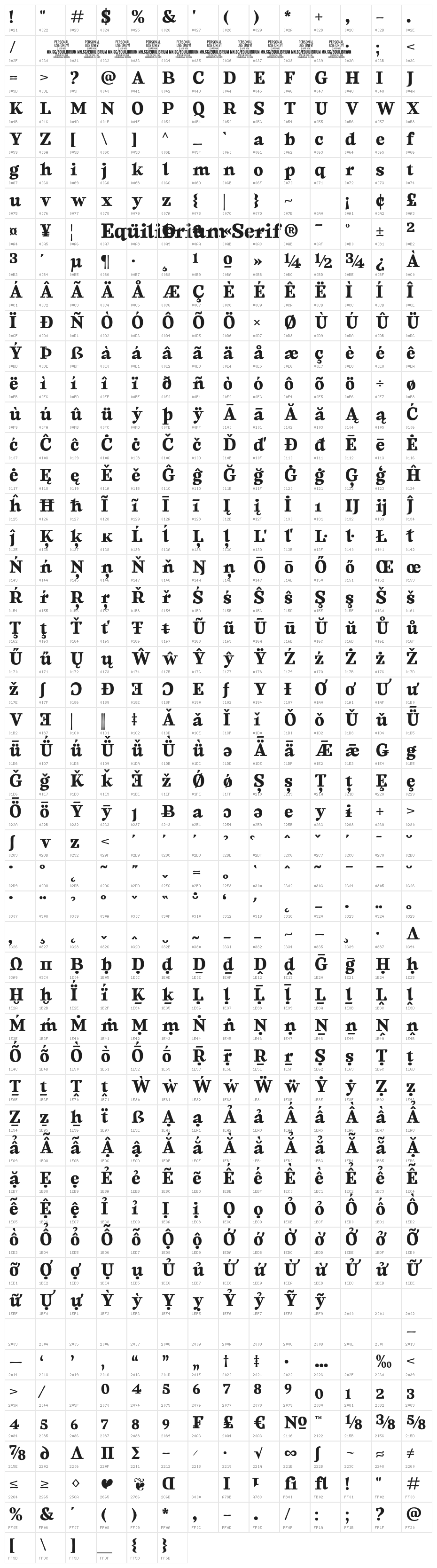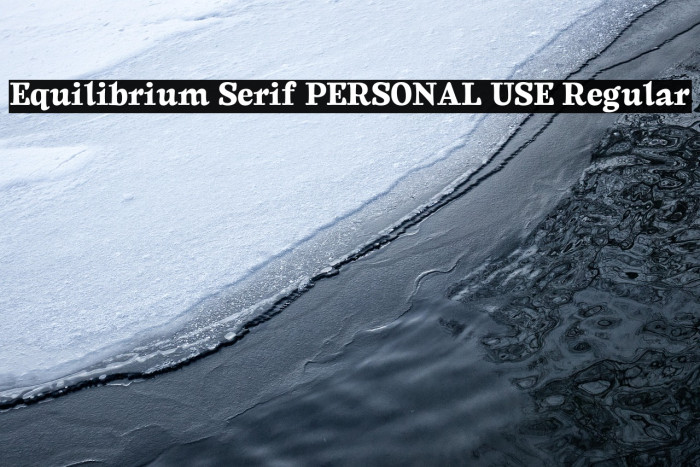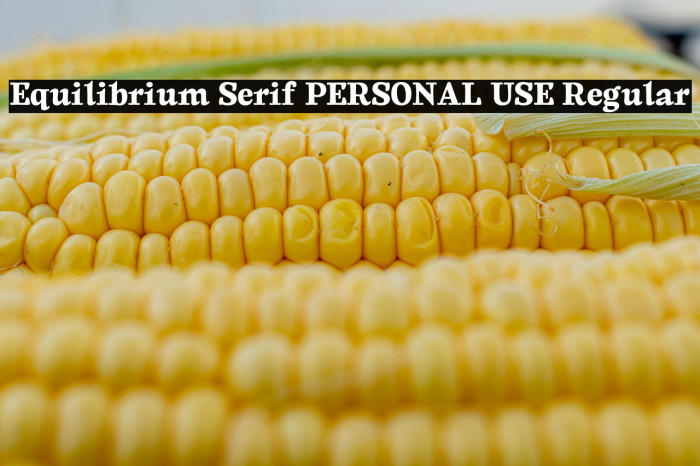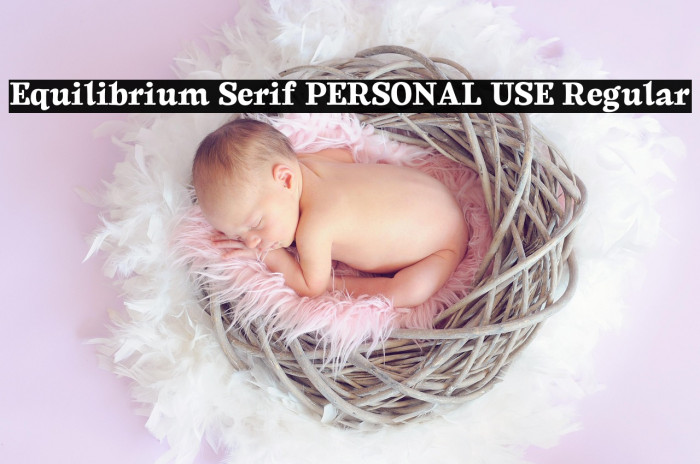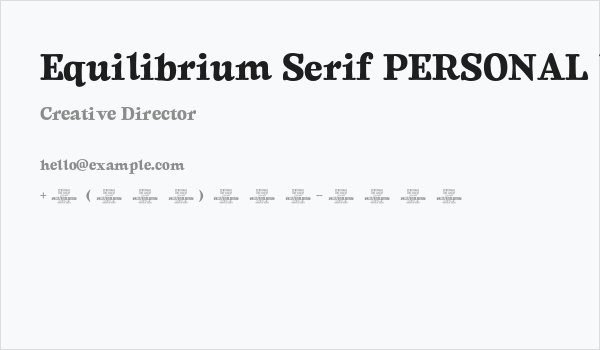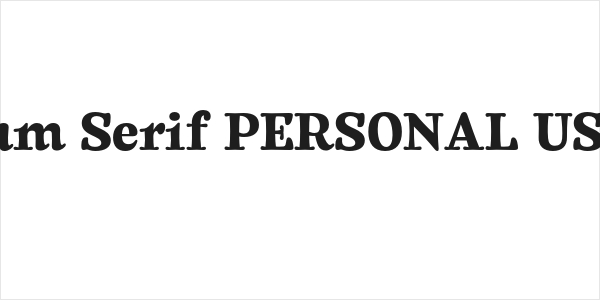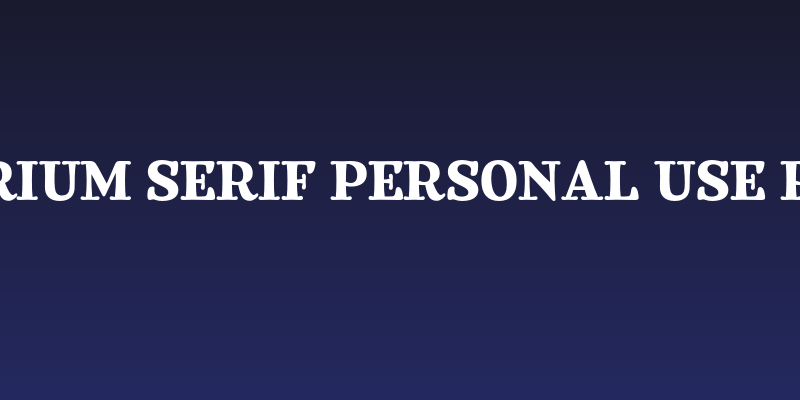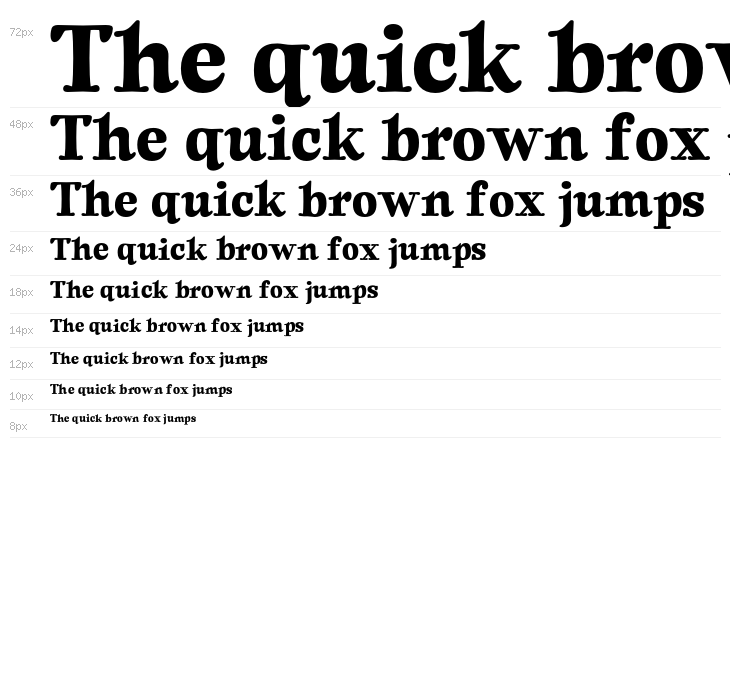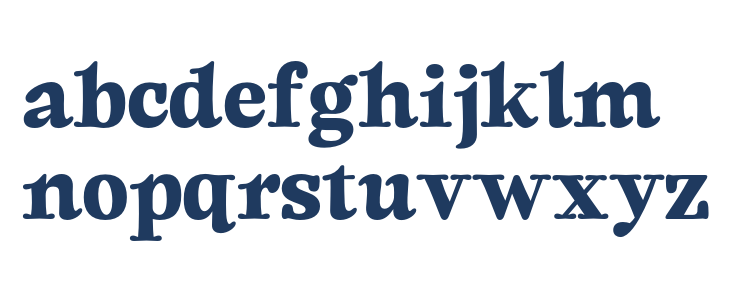
Equilibrium Serif PERSONAL USE Regular Font
Equilibrium Serif PERSONAL USE Regular Description
This font features a classic serif style with strong, bold strokes and a traditional appearance. The serifs are pronounced, adding a sense of formality and elegance to the typeface. The uppercase letters are well-defined and consistent, while the lowercase letters maintain a balanced and harmonious look. The numerals are clear and easy to read, and the special characters are distinct, complementing the overall design. This font exudes a timeless quality, making it suitable for a variety of applications where a touch of sophistication is desired.
| Use Case | Headlines, Logos, Editorial design |
| Proposed Projects | Ideal for book covers, formal invitations, branding, and editorial design. |